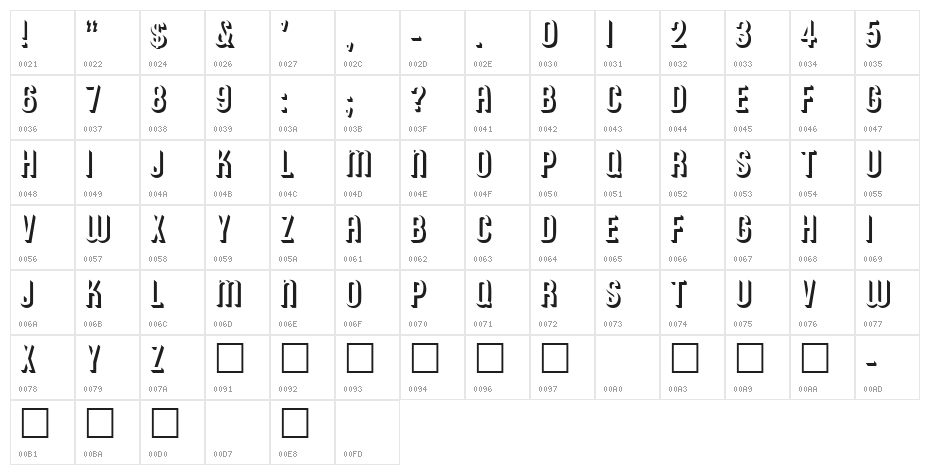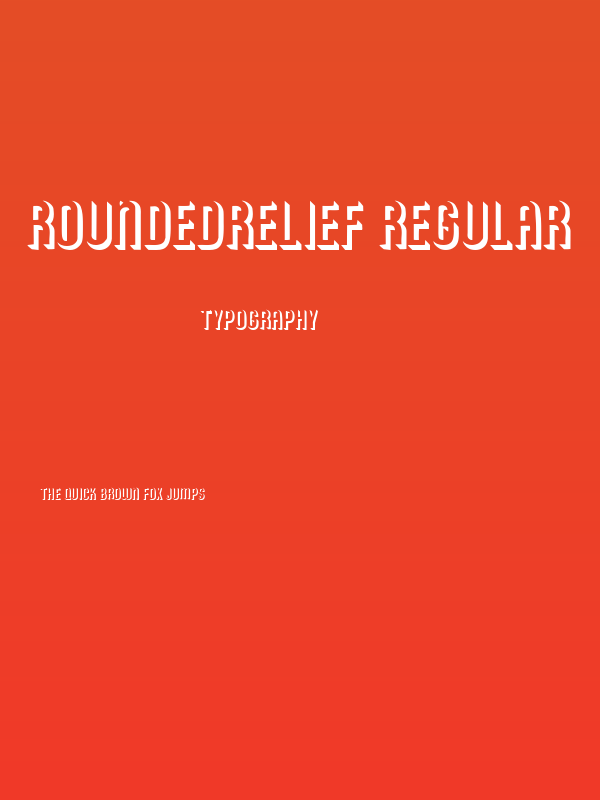
RoundedRelief Regular Font
RoundedRelief Regular Description
This font features a bold, three-dimensional appearance with a shadow effect that gives it a sense of depth and relief. The characters are capitalized and have a strong, impactful presence, making them ideal for attention-grabbing designs. The rounded edges soften the overall look, balancing the boldness with a touch of elegance. The font maintains a consistent stroke width throughout, contributing to its uniform and cohesive style. The spacing between characters is tight, enhancing the compact and solid feel of the text.
| Proposed Projects | Ideal for headlines, posters, logos, and any design requiring a striking and memorable typeface. |